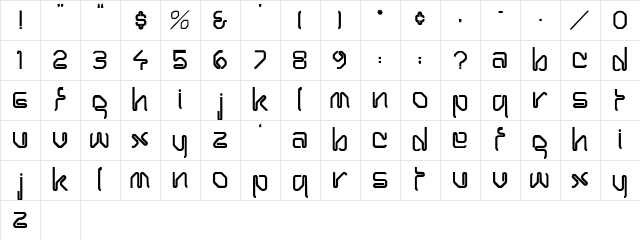
Design Context for Hairpin-Normal
Hairpin-Normal is a composed and adaptable typeface that performs quietly and consistently across a wide range of design contexts.
Pro Tip: Use Hairpin-Normal in both headline and body roles to test its range before committing to a single application.